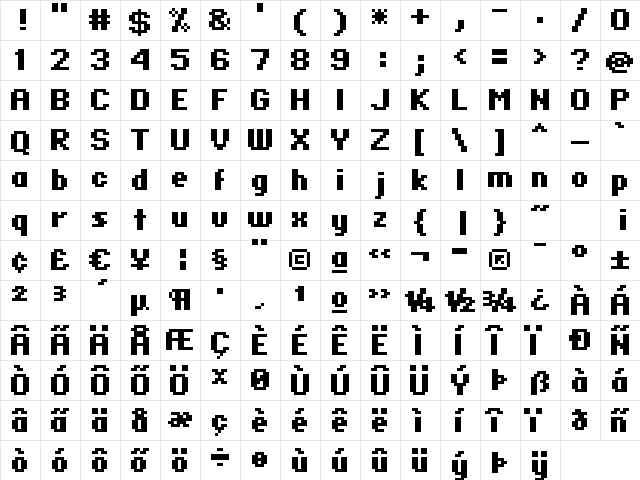
standard 07_66 Regular
Design Context for standard 07_66 Typeface
standard 07_66 offers clean, dependable letterforms without strong stylistic allegiance, making it a practical choice for designers who need flexibility.
Pro Tip: Pair standard 07_66 with a font of contrasting weight or personality to build a more expressive typographic hierarchy.